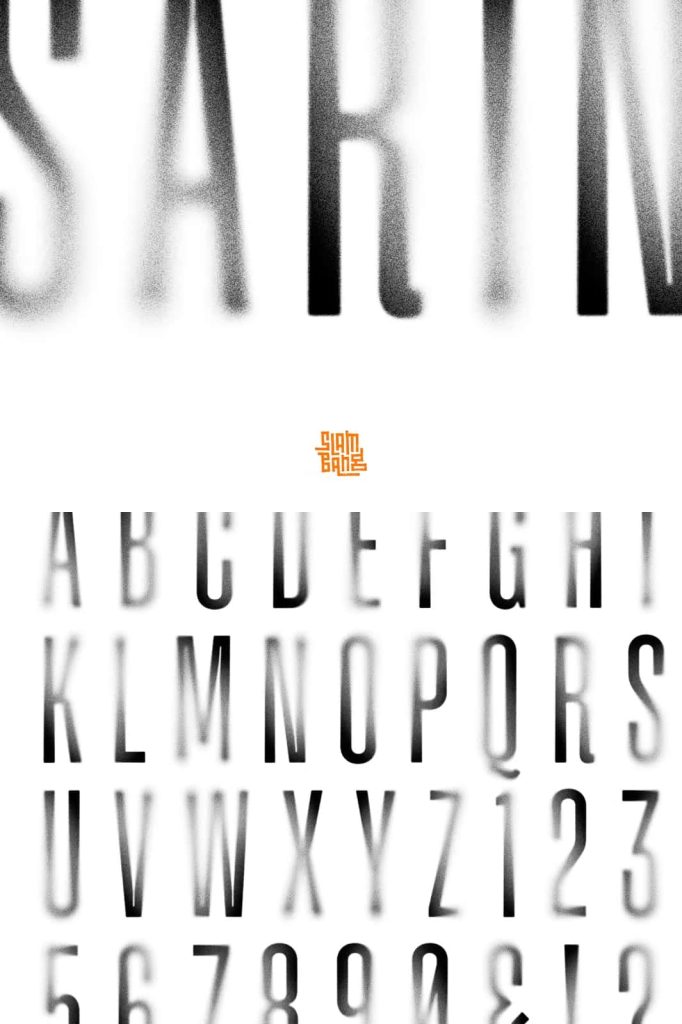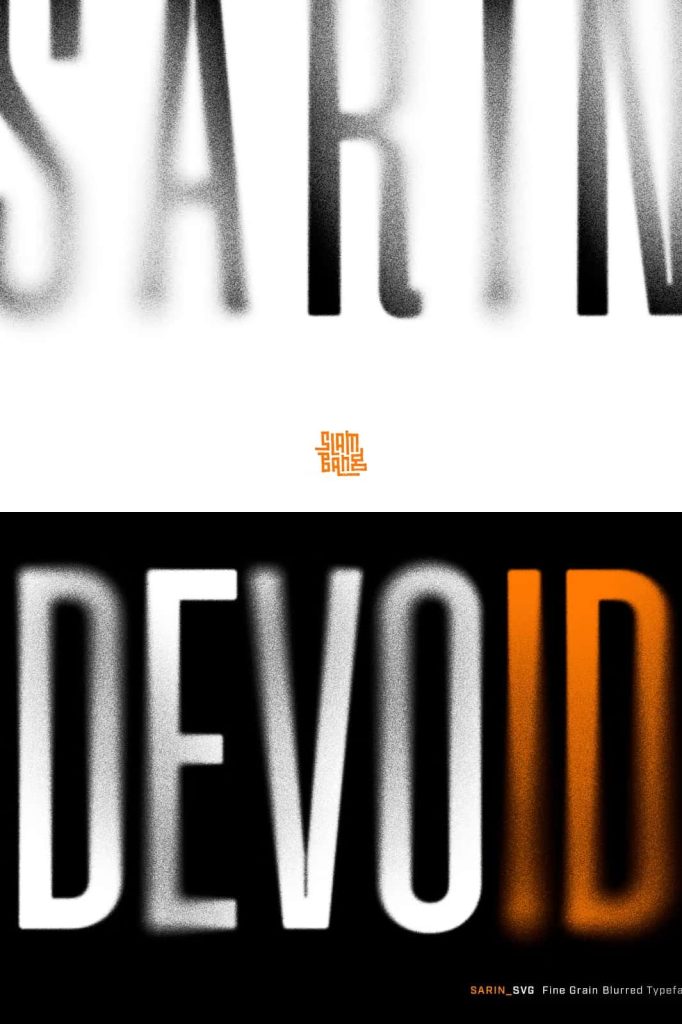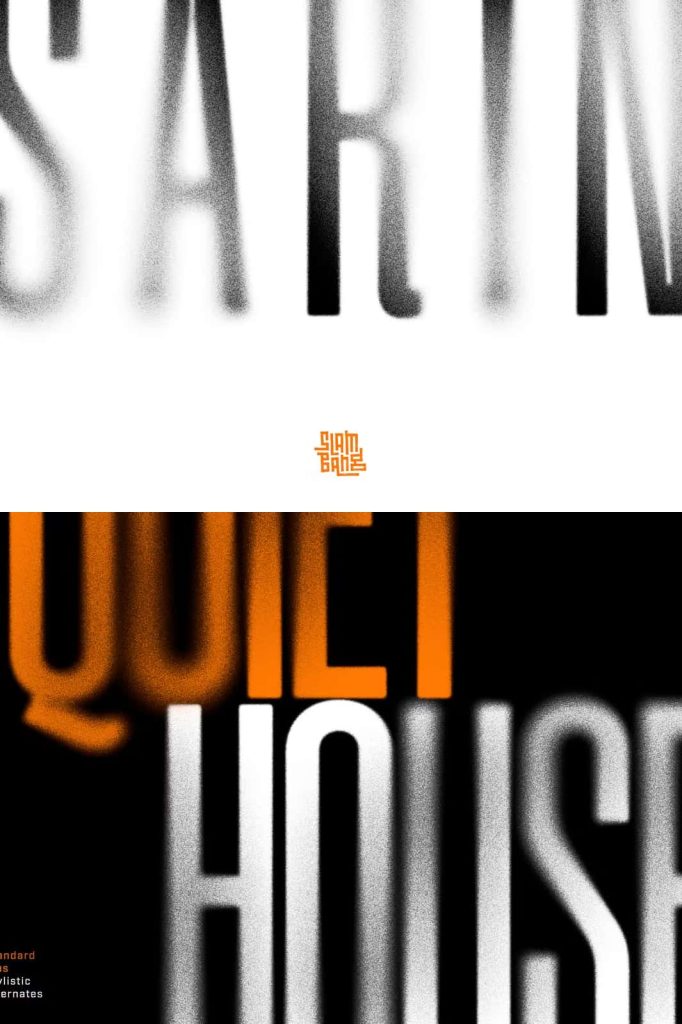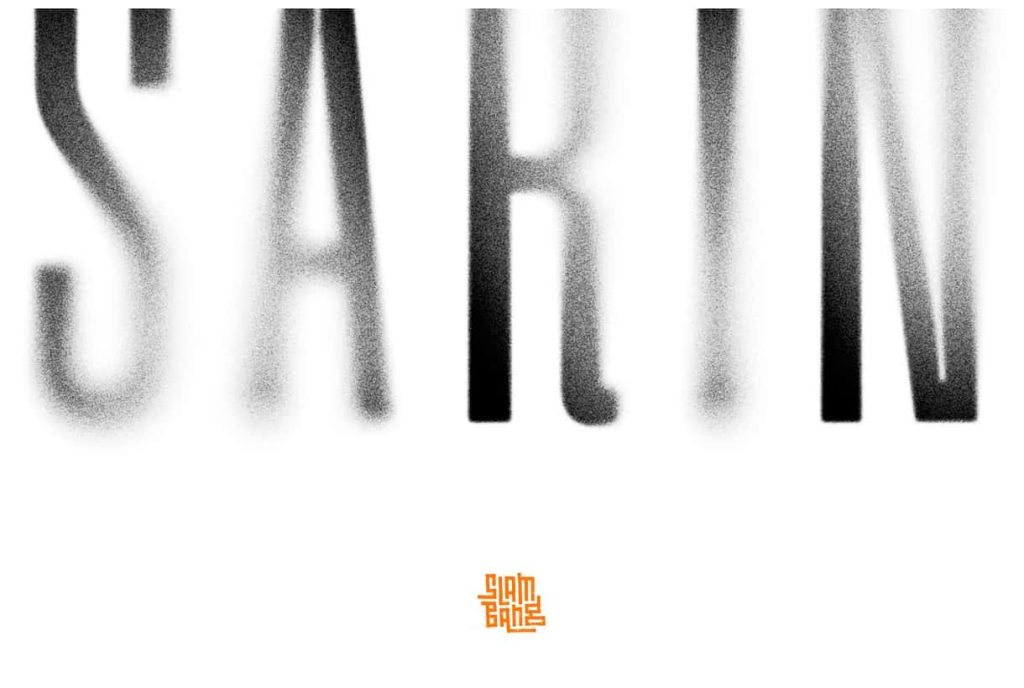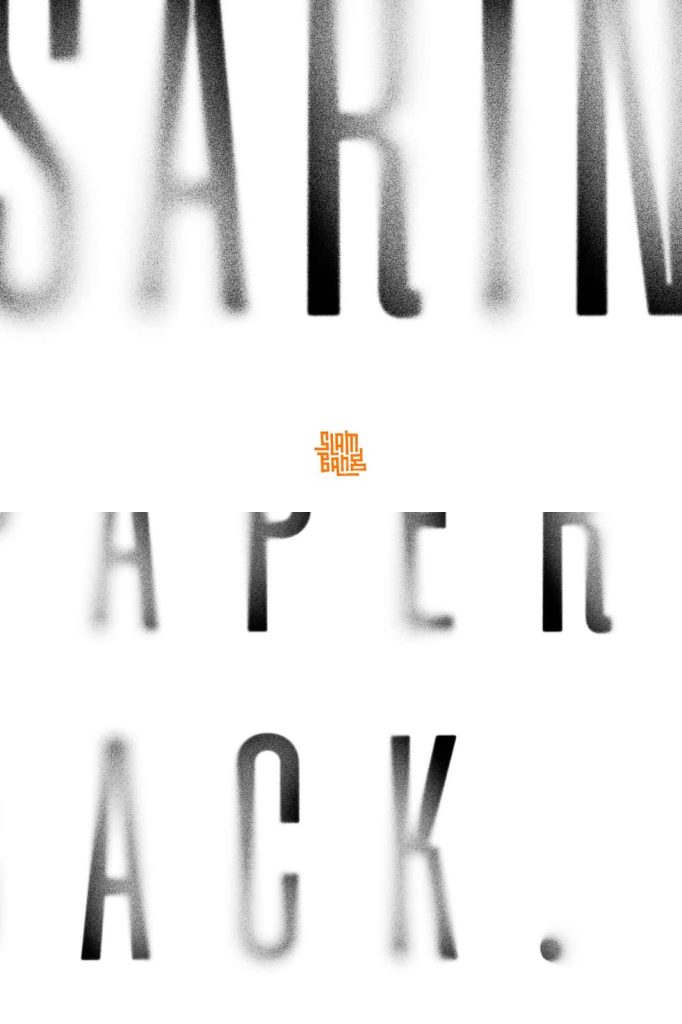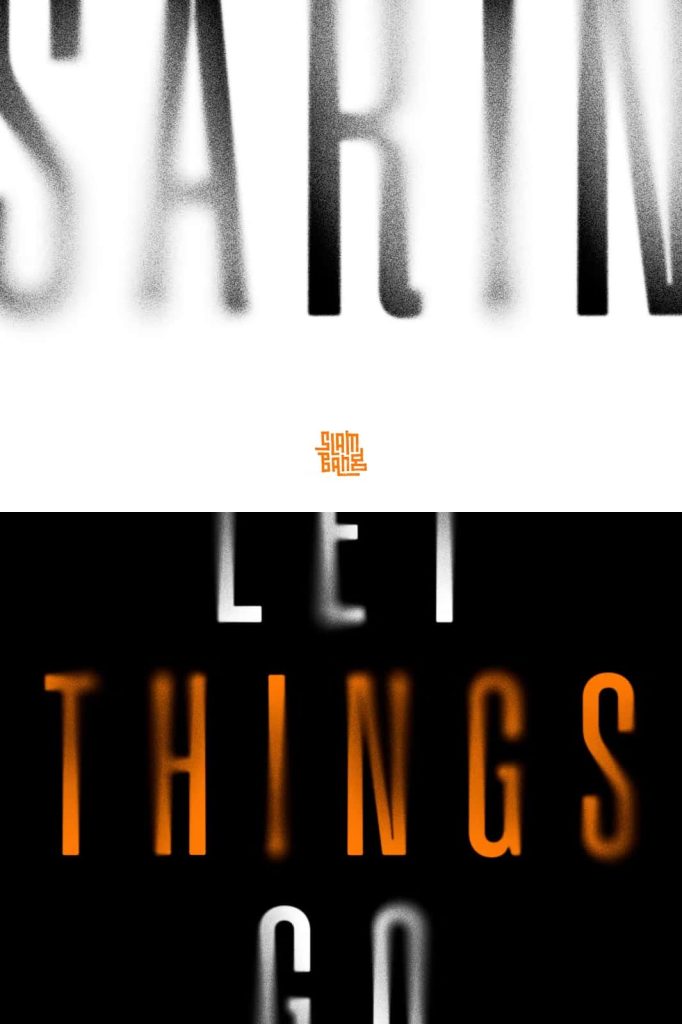
Sarin SVG is a condensed industrial sans with a gritty, fine-grain blur. It’s part solid and part smoke with edges that dissolve into atmosphere…a great choice for dystopian film titles, music and album artwork, experimental branding,